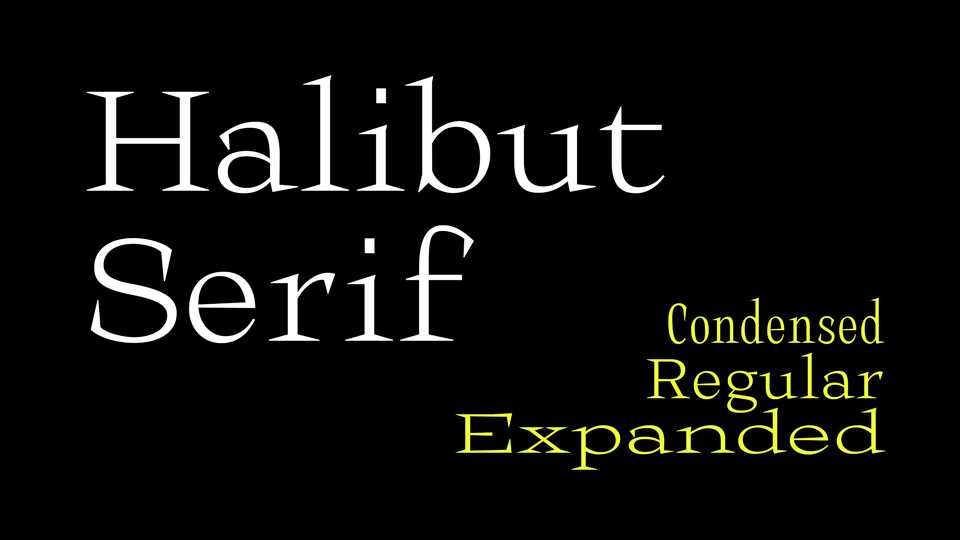
Download Halibut Serif typeface, a Roman font family inspired by the classics but with a shade of the contemporary. The result is “something very spiky and cold” and so named Halibut as a reference to fishing hooks and shiny sharp fish.
Designer: Collletttivo